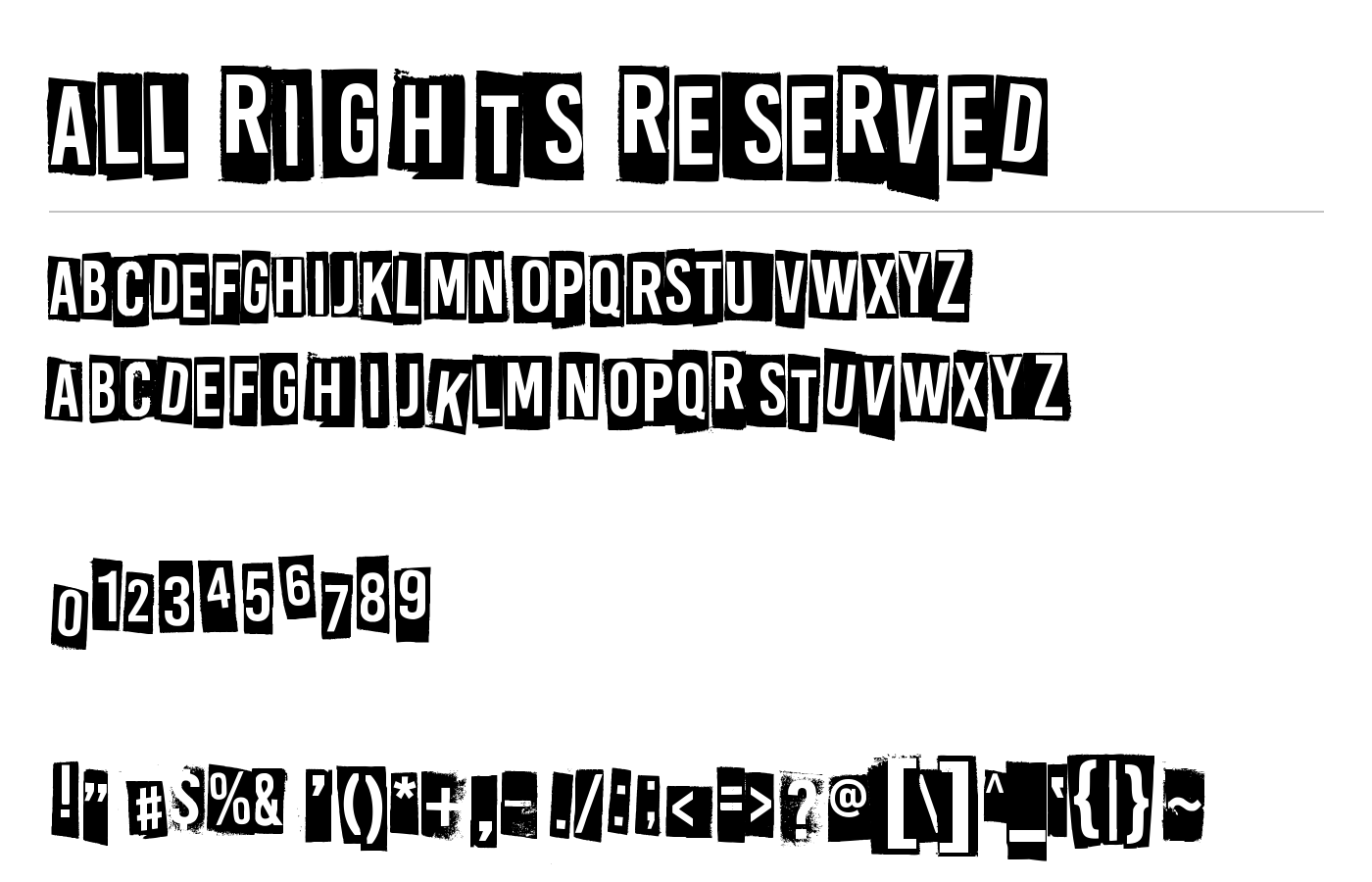
All Rights Reserved is a bold, condensed sans serif font with a distressed, cut-out letter style that mimics ransom note typography. Its heavy weight and irregular edges give it a rebellious, edgy feel, making it ideal for designs that want to convey urgency or counterculture vibes such as posters, edgy branding, or alternative fashion. This font works best in headlines or display uses where powerful, eye-catching impact is needed.
All rights reserved Font
About All rights reserved Font